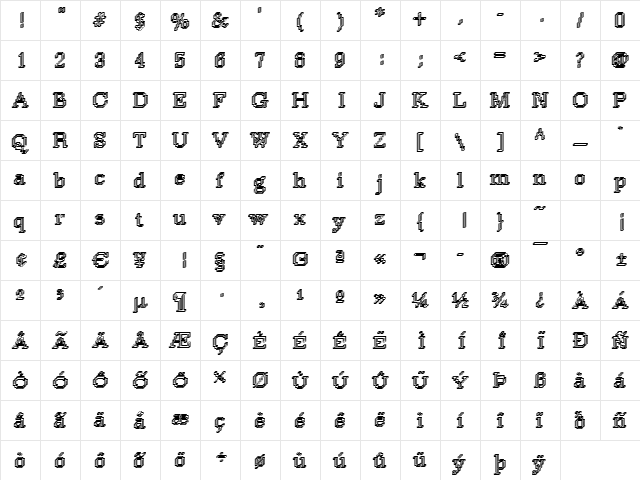
Rough34 Bold
Design Context for Rough34 Typeface
Rough34 embraces imperfection — its rough, textured character adds raw authenticity to designs that want to feel lived-in and unconventional.
Suited to punk-influenced zines, underground music branding, streetwear, and raw, anti-corporate design.
Pro Tip: Pair Rough34 with intentionally raw or lo-fi design elements. Fighting against it with overly polished surroundings will undermine its personality.